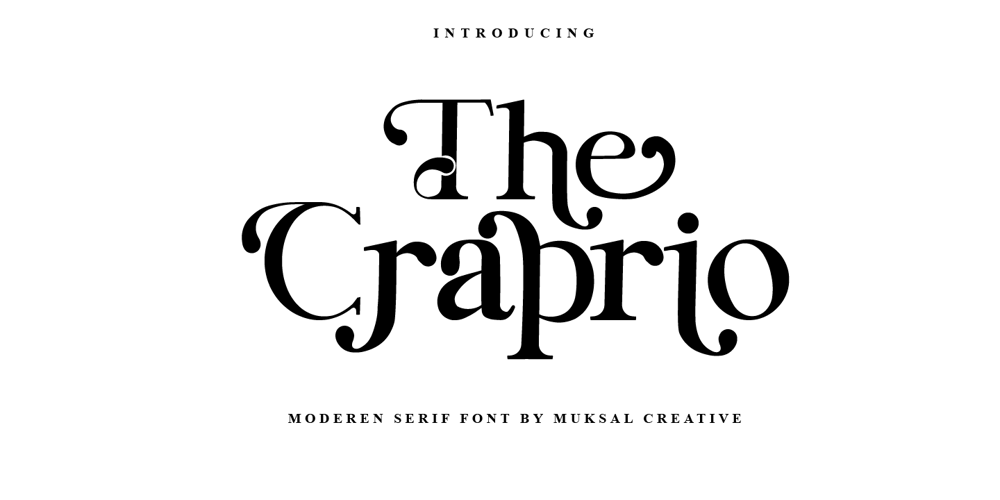
The Craprio Font Family was designed by Muksalmina and published by Muksal Creatives. The Craprio contains 1 styles and family package options. The Craprio is a unique, simple, clean and well appointed display serif. It is perfect for gorgeous logos, titles, web layouts, fashion magazine and branding. It looks very nice and classy in an all-caps with a wide-set spacing, and also very beautiful on its own in capital and lowercase letters.